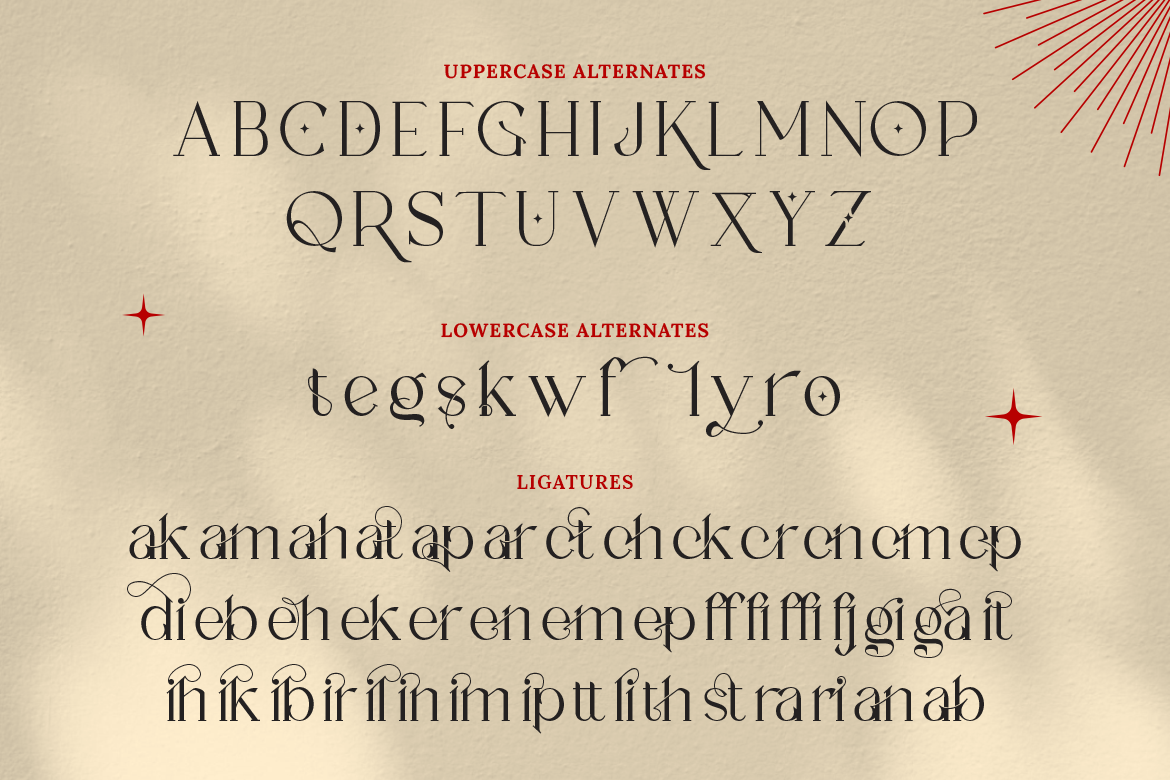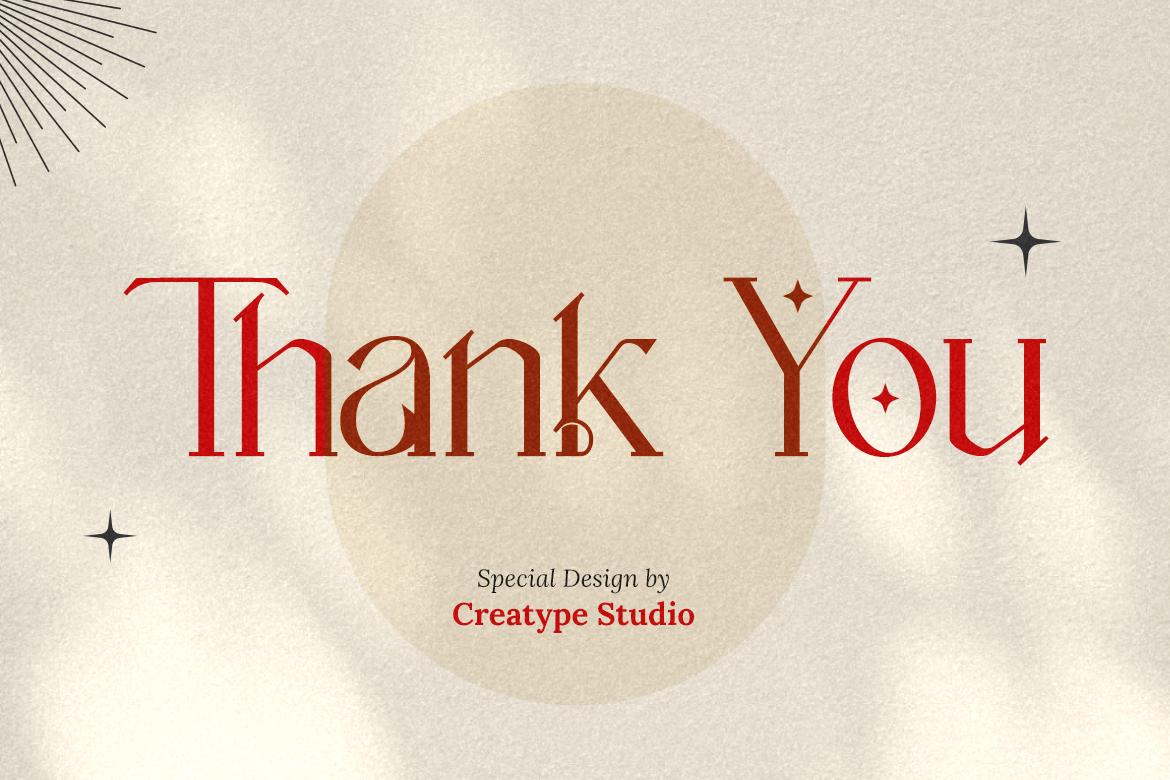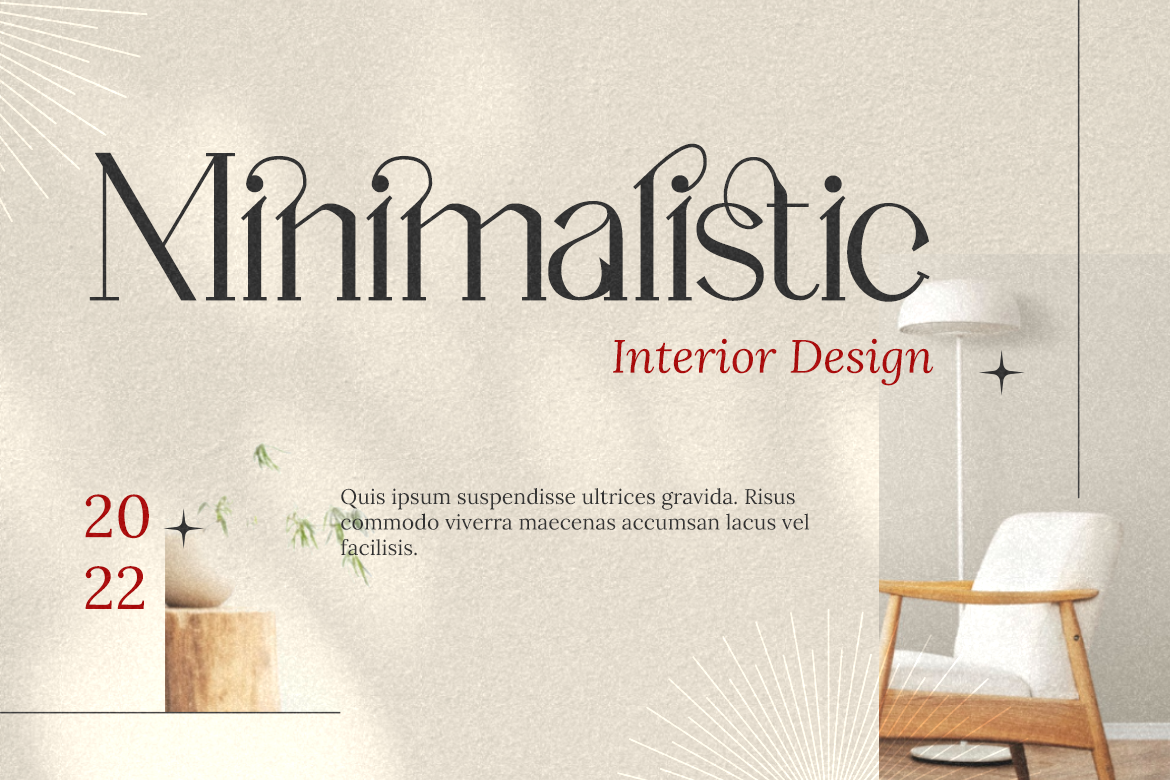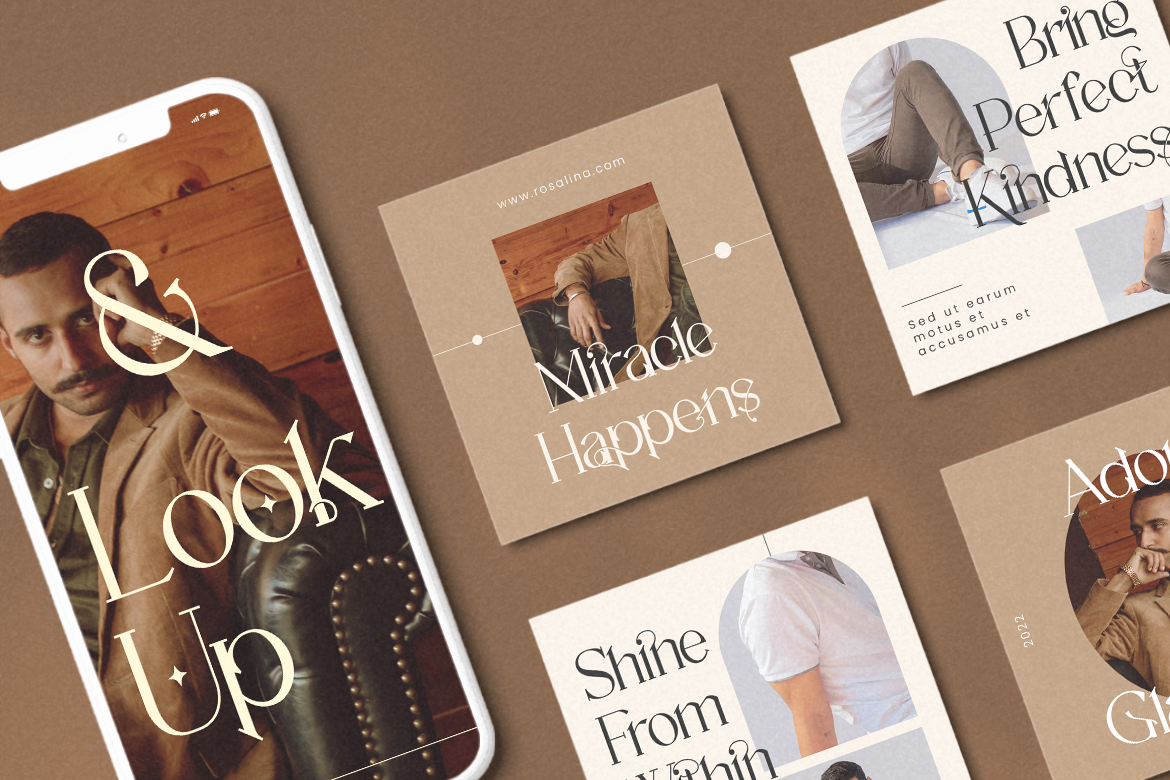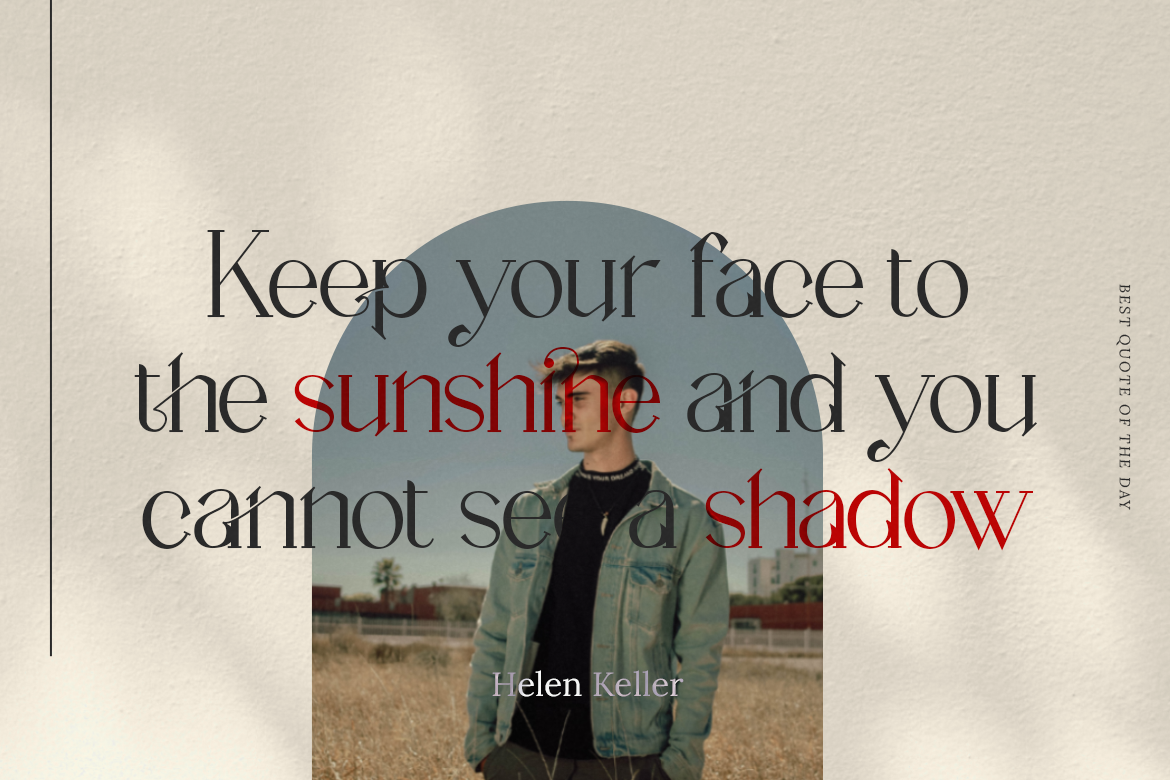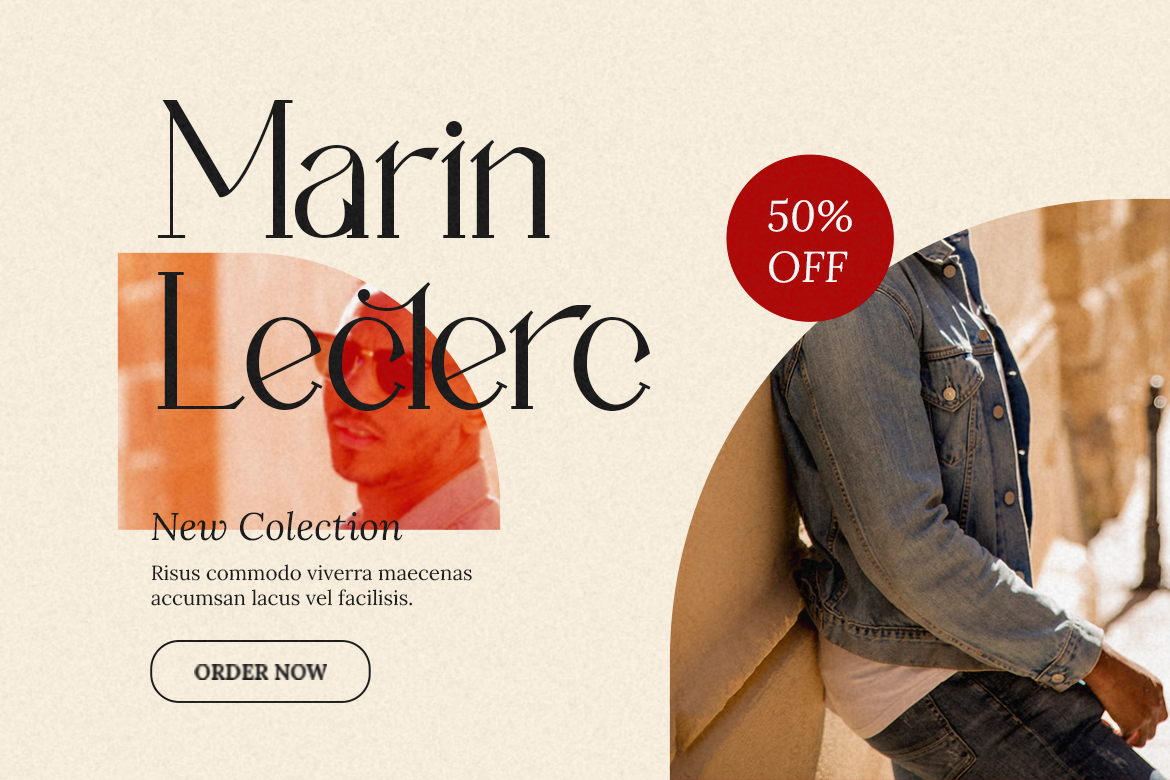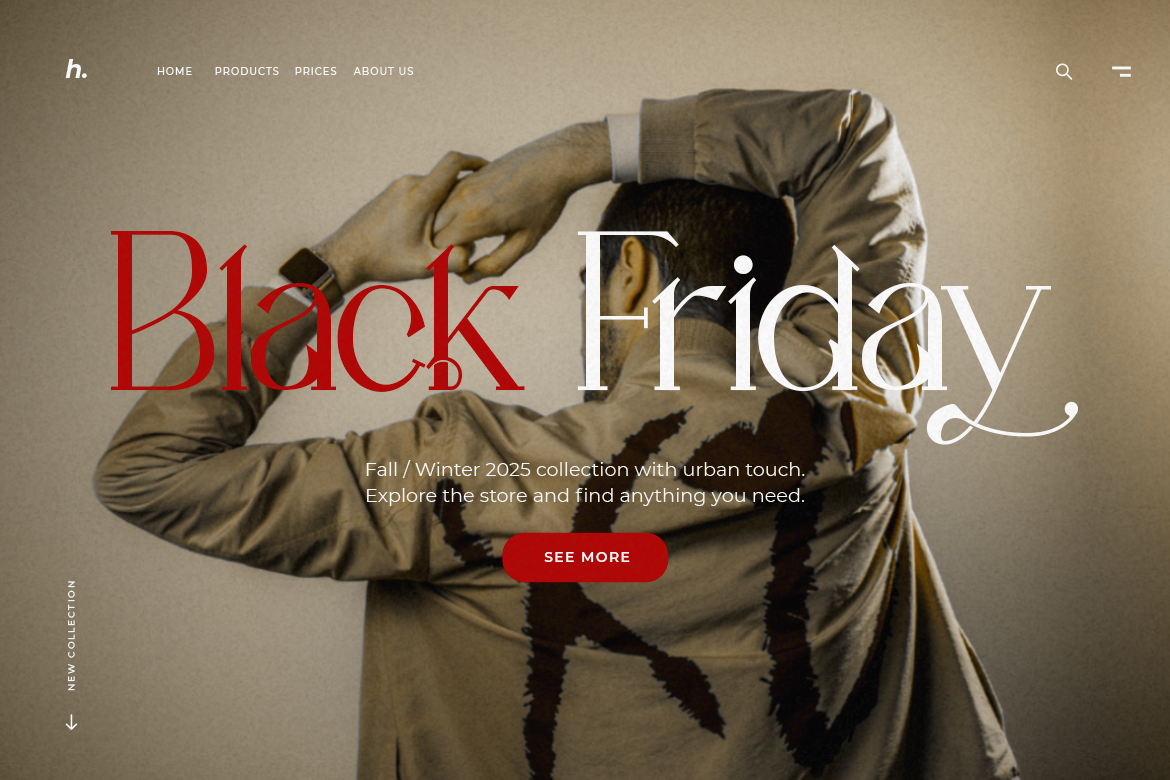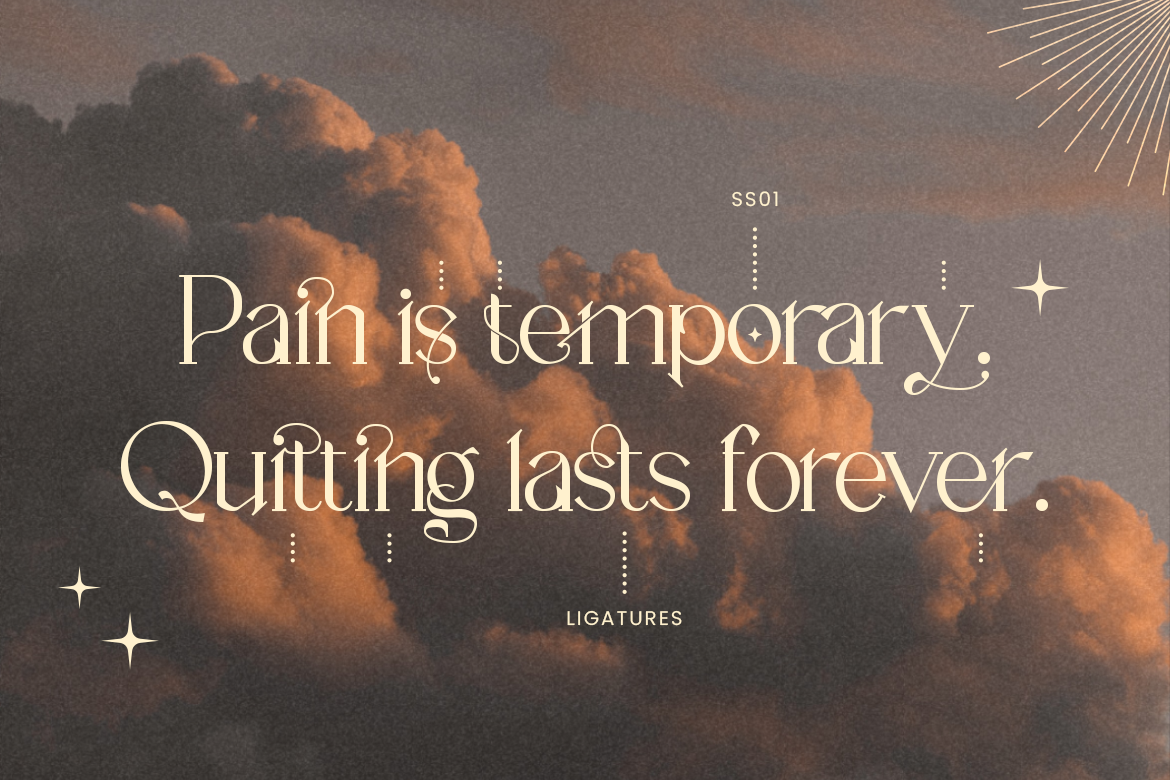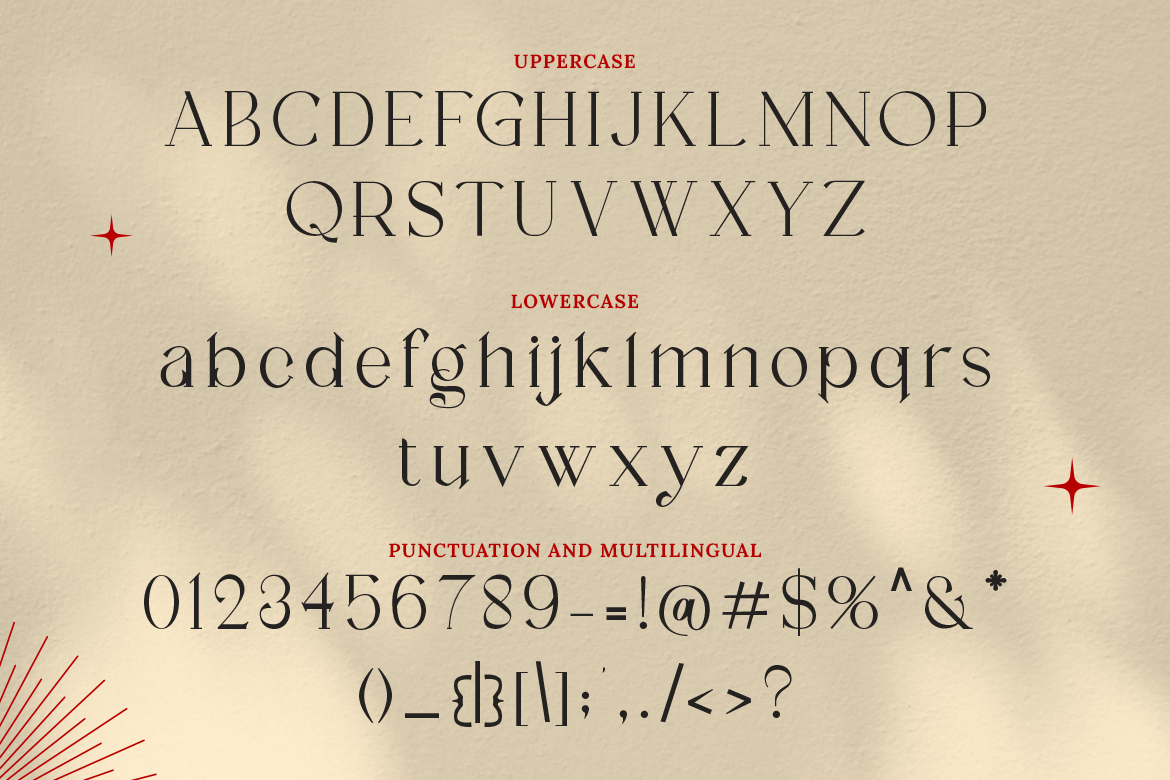
A spiced-up sans serif, with a magical touch, alluring and sophisticated looks. That’s what Rosalina is. Rosalina is a game-changer for typography that Creatype made. You can use this font for every design, especially for a beauty brand.
Rosalina is perfect for branding projects, logo, wedding designs, social media posts, advertisements, product packaging, product designs, label, photography, watermark, invitation, stationery and any projects that need handwriting taste.
Rosalina Stylish Serif